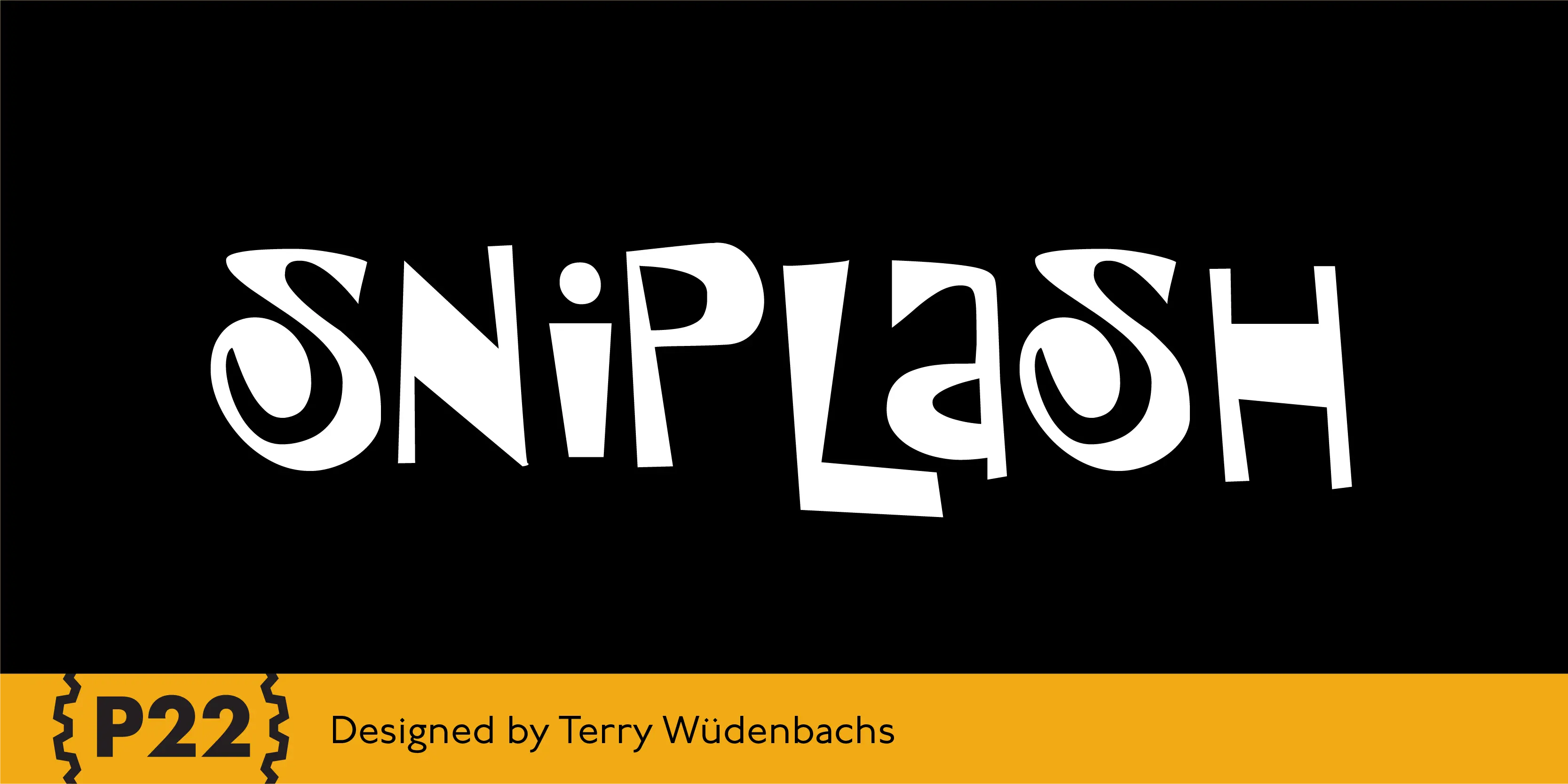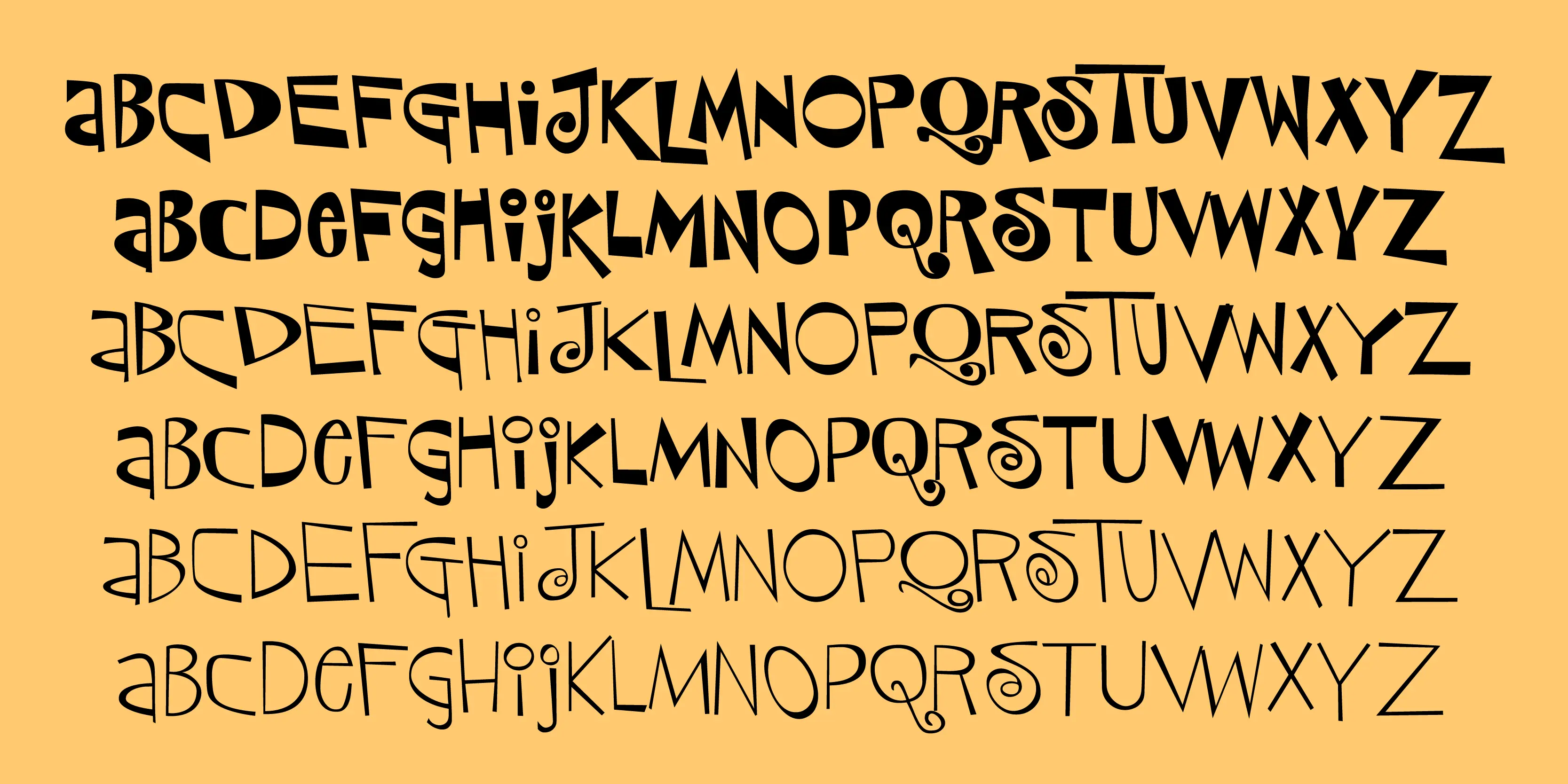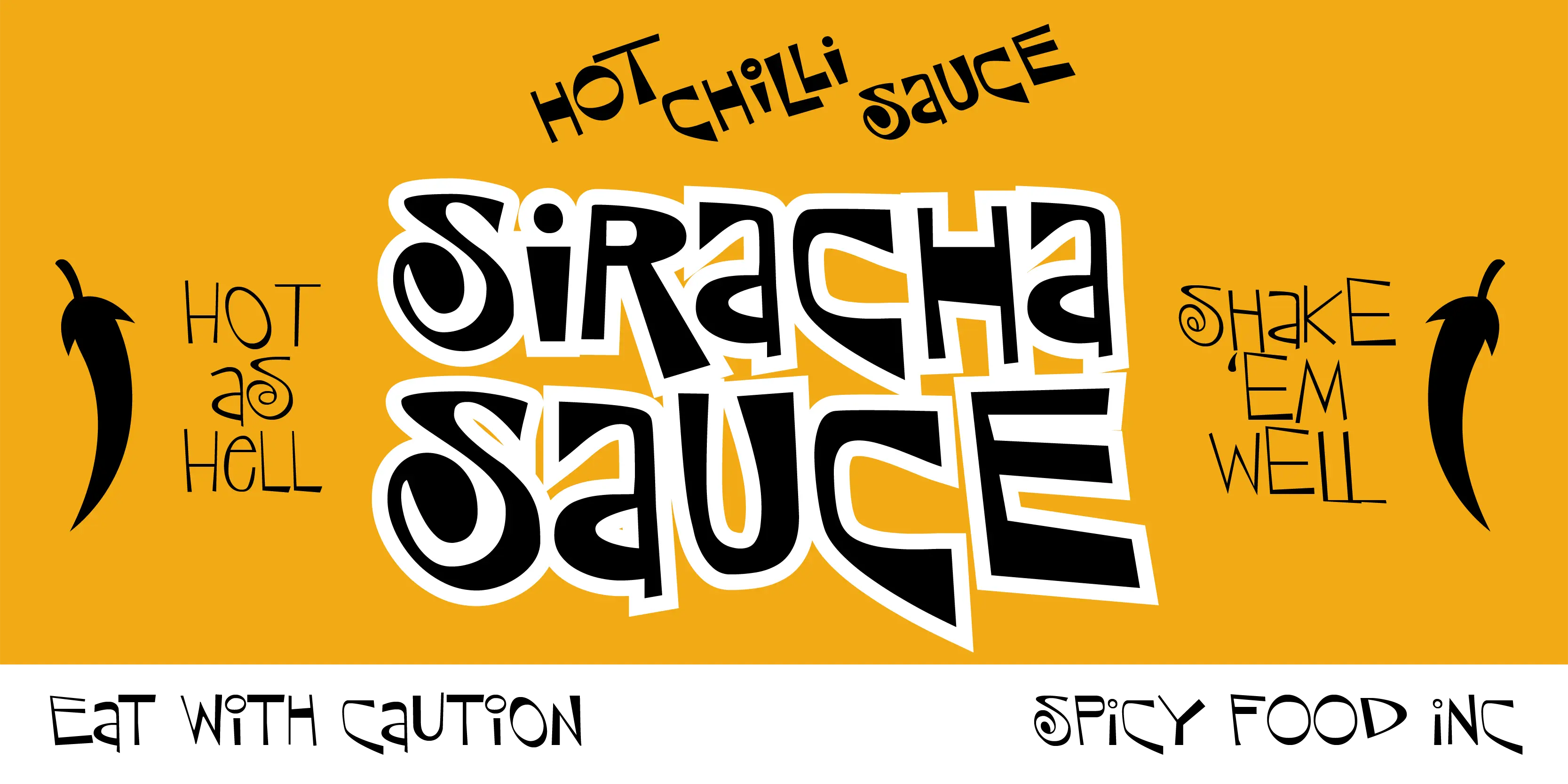
Sniplash Font Family
Sniplash
Sniplash is a lively font inspired by cartoons and comics of the 1960s and ’70s. Casual and organic, this font features curly lines and irregular weights in Regular, Light and Bold styles. This design defies serious analysis and offers a fun attitude for lighthearted design. Excellent for parties, retro packaging or any number of uses.